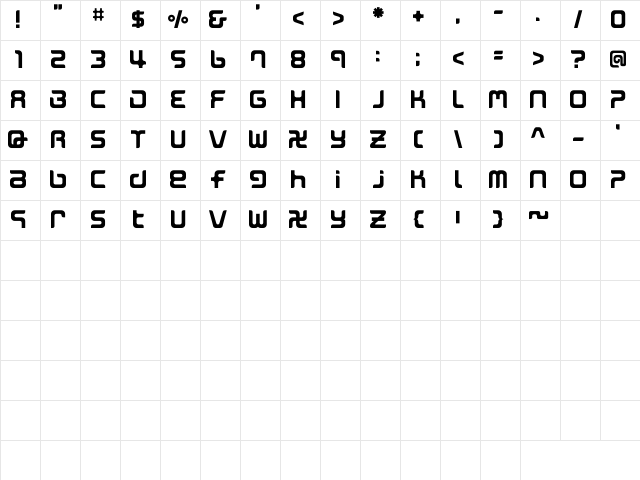
Complete MarkingMarker ALP glyph index. Displaying only characters natively supported by MarkingMarker ALP font.
MarkingMarker is a composed and adaptable typeface that performs quietly and consistently across a wide range of design contexts.